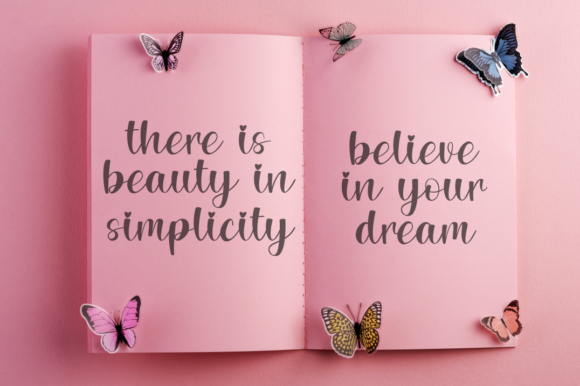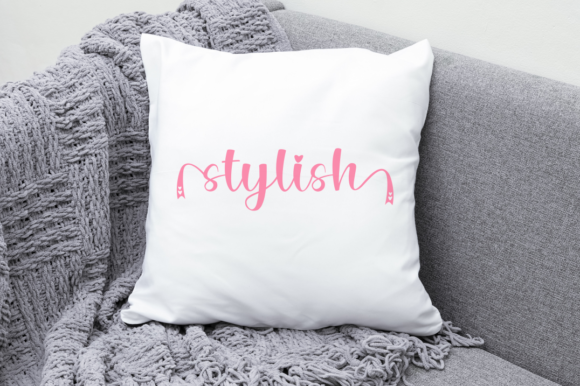
Sweet Ribbon Font
db-ku.com - Script & Handwritten -- Sweet Ribbon is a cute and lovely handwritten font that you can use for all chalkboard quotes or teaching material! Its authentic look will add a personal and realistic feel to your designs. This font is PUA encoded, which means you can access all of the glyphs and swashes with ease!